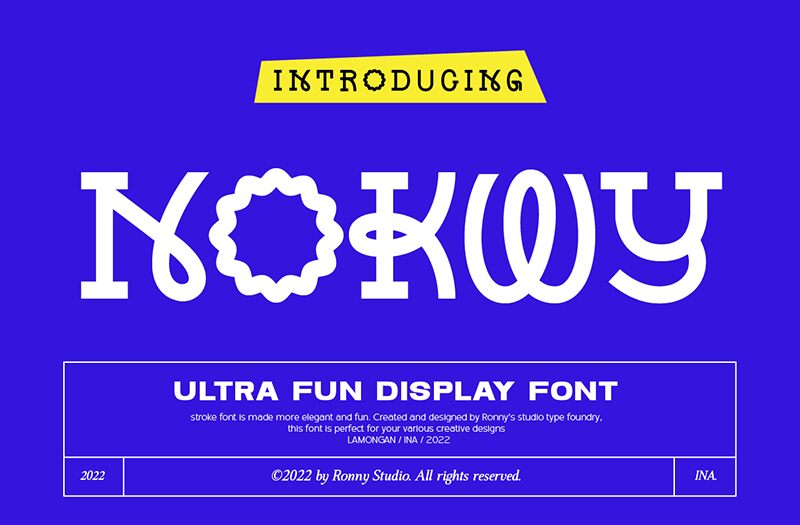
Nokwy, designed by Ronny Studio, exudes a captivating charm that sets it apart in the realm of display fonts. With its bold, expansive form, this font commands attention while radiating a sense of playfulness and creativity. The exaggerated curves and whimsical details breathe life into every letter, making it visually striking and engaging.
Nokwy's unique personality makes it perfect for a variety of design contexts-from eye-catching posters to vibrant branding materials. Its light yet bold appearance allows for versatility in applications like event invitations and product packaging, where flair is essential. This font not only elevates but also personalizes any project, ensuring it resonates with viewers while standing firm in its distinct style.